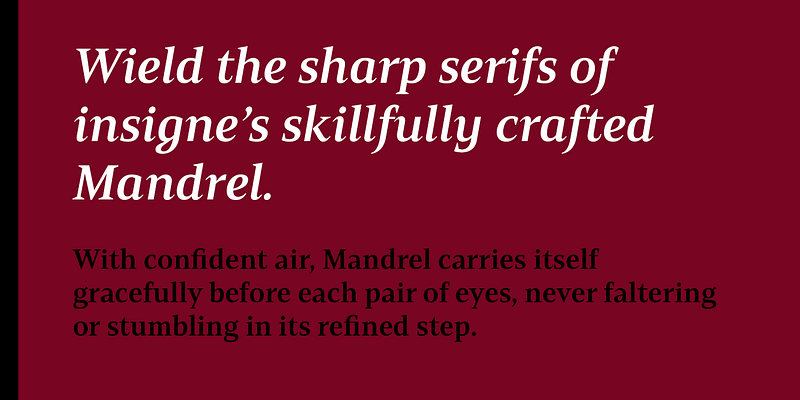
Mandrel
Elegant and courtly, the face of Mandrel is crafted for high-impact resistance. With strong serifs and high contrast, you'll find this champion ready to take up your challenge.